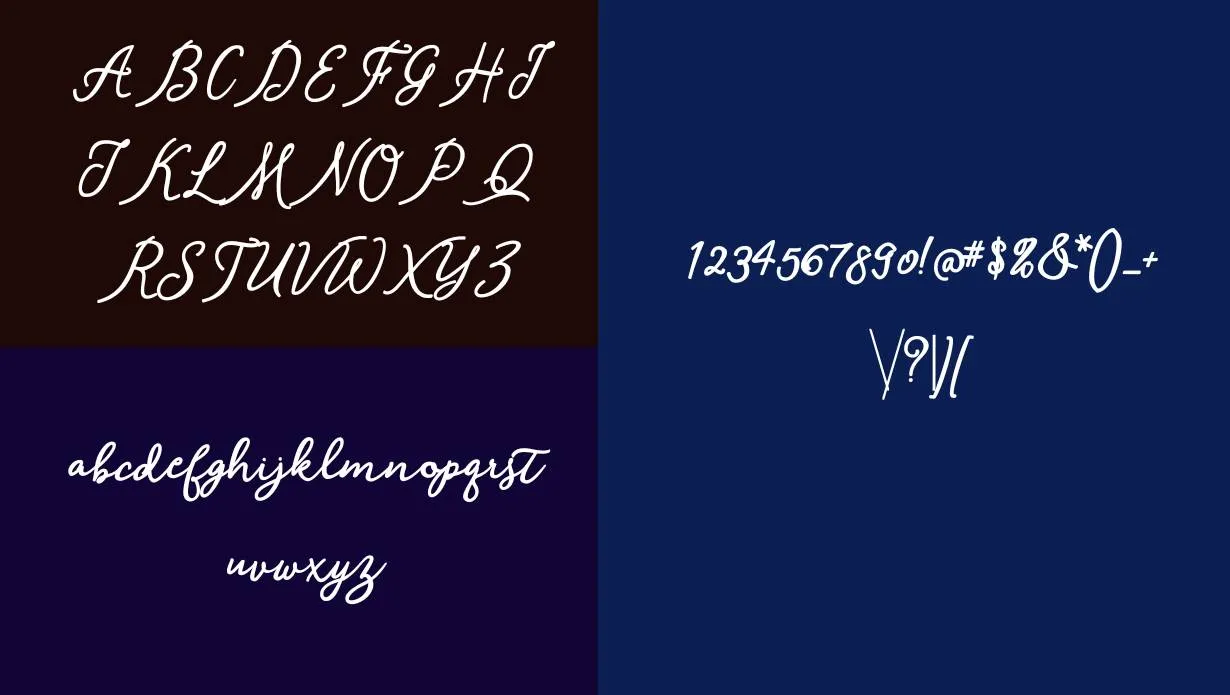
The Shantik font emanates a warm and welcoming atmosphere with its friendly and cheerful design. Often utilized in children’s books, educational materials, or projects aiming to convey a friendly and inviting tone, this font adds a touch of playfulness and amicability to text, creating a lighthearted and approachable typographic style.
It’s favored for its ability to add a friendly and warm touch to various designs, especially those targeting younger audiences